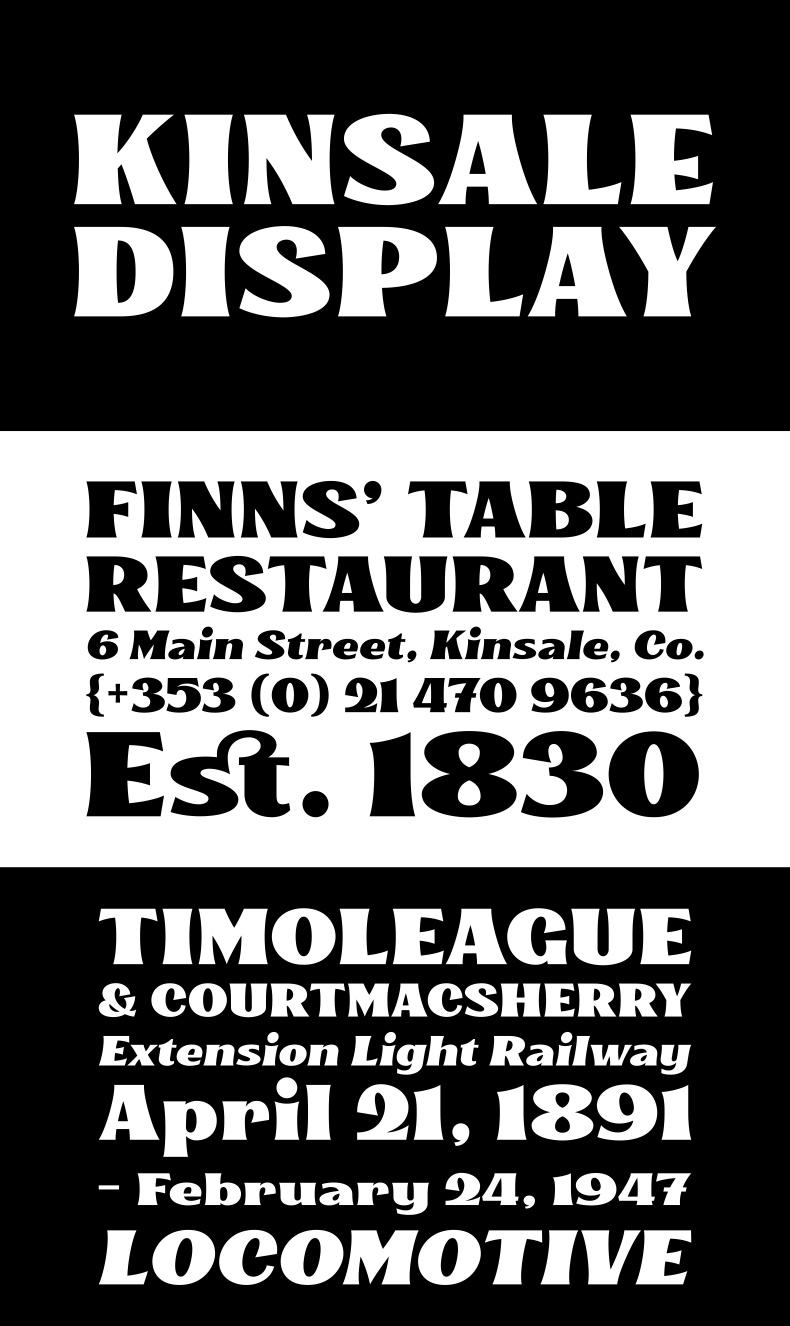
Introducing our new font Kinsale Display. A bold and strong looking display font that not only heavily inspired by the vintage/classic letterforms, but also some touch of modern twists and absurdities. Mouse-crafted with high attention to details; clean lines, sharp edges and tempting curves. Its wide and blocky letterforms make Kinsale is a great spacekiller. Suits best for title/headline, logo/logotype, packaging/label designs, etc. ----- PS: This font is a demo version, which only contain standard characters (upper, lowercase, numerals and standard punctuations). ----- Purchase the full/commercial version to get the slanted version, multilingual characters, alternate characters (including stylistic sets, alternates, ligatures) here: https://crmrkt.com/ba82KB THANKS! |